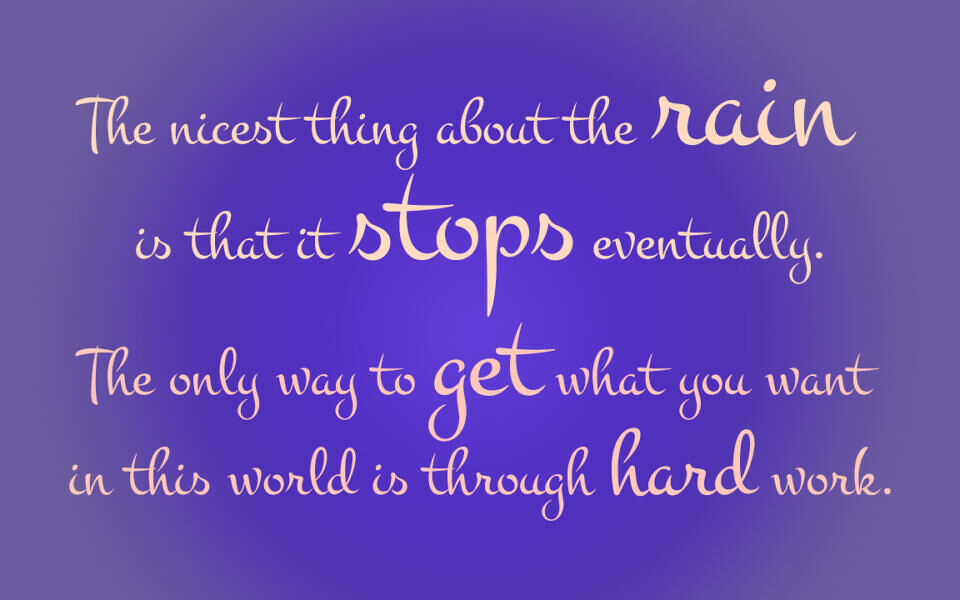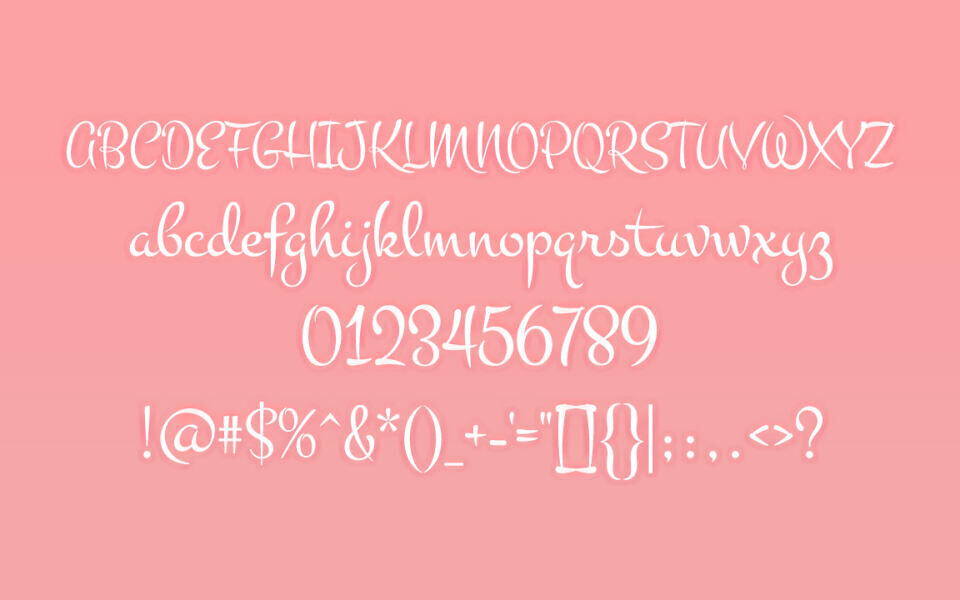
Montezuma is a free script font which draws inspiration from 1960s beauty product ads. Its sweeping strokes lend to a feel of joy and elegance, making it ideal for display uses that require a little drama, “joie de vivre” or Joy of Life. Best settings are at medium to large text sizes for optimal readability.